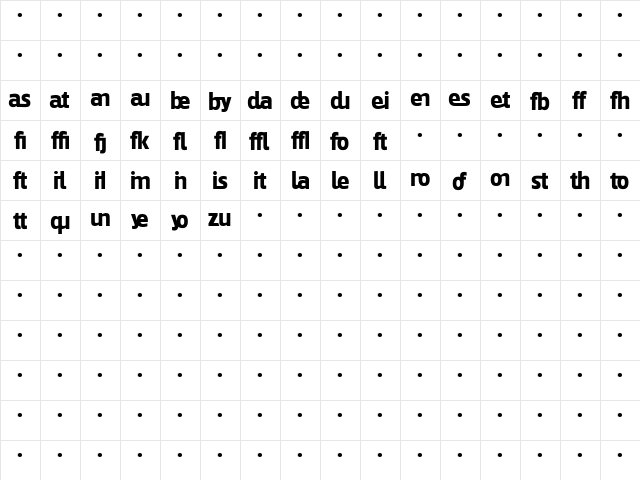
GovanThree-Ligature Regular
Design Context for GovanThree-Ligature Typeface
GovanThree-Ligature is a composed and adaptable typeface that performs quietly and consistently across a wide range of design contexts.